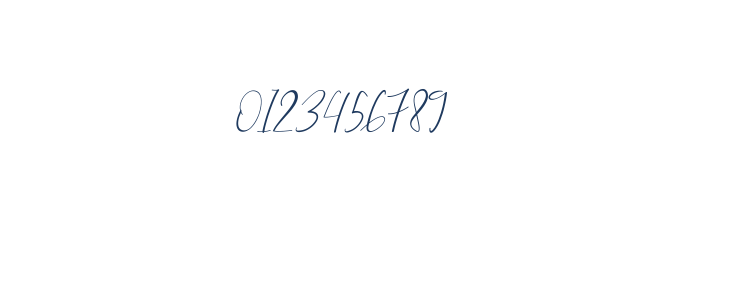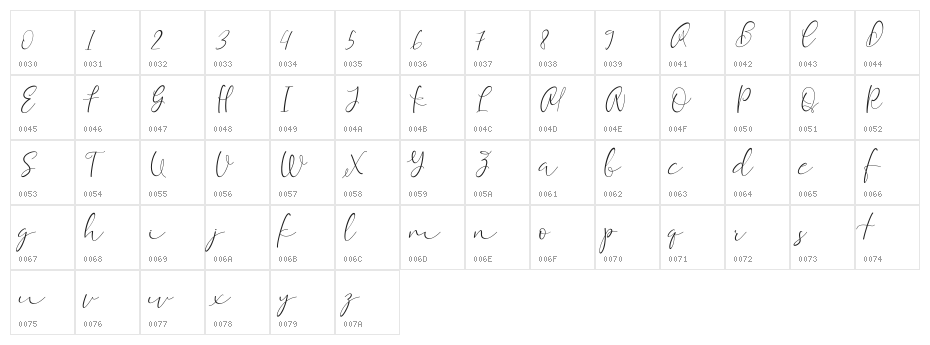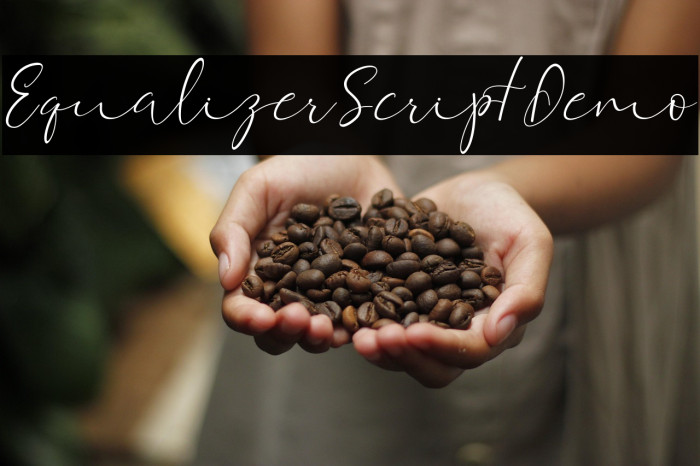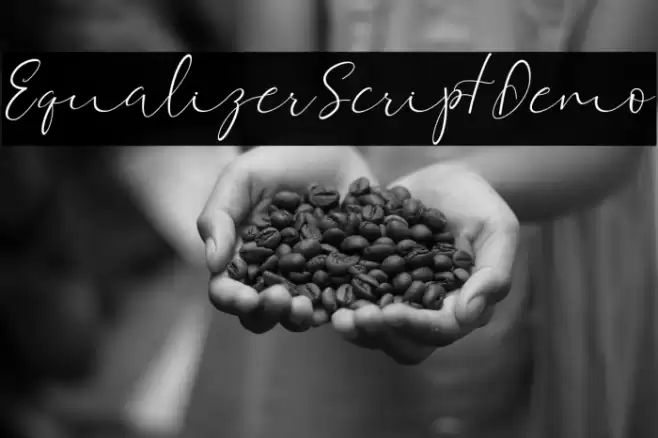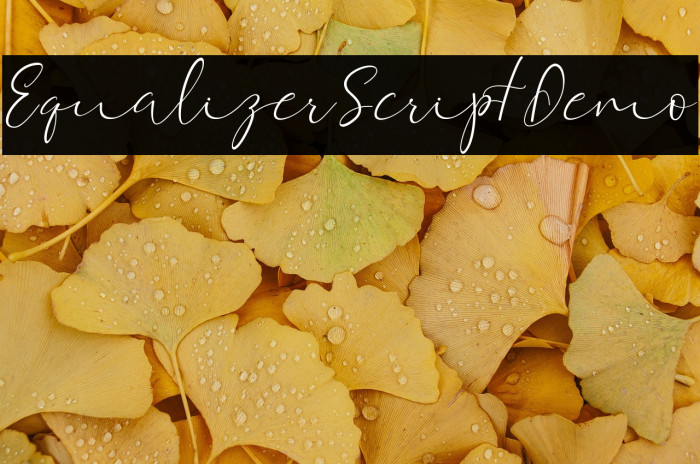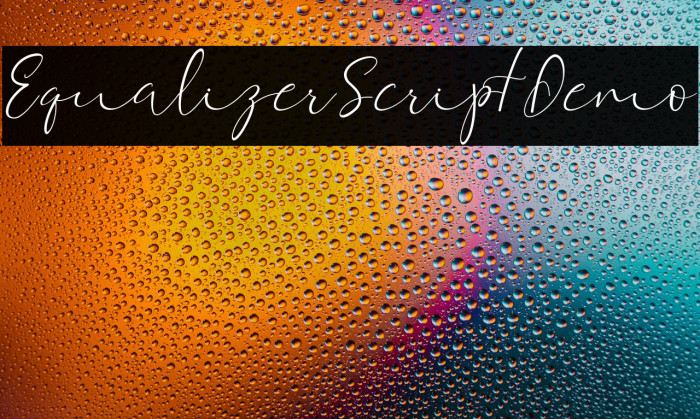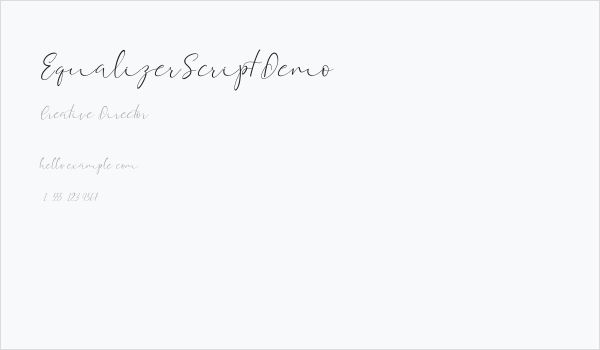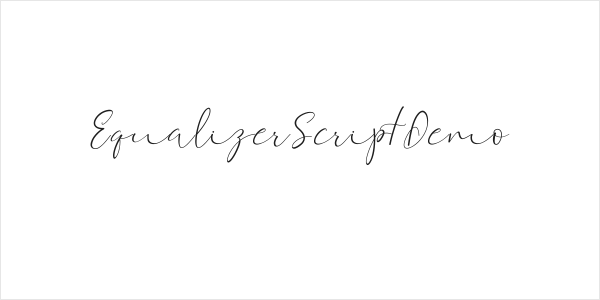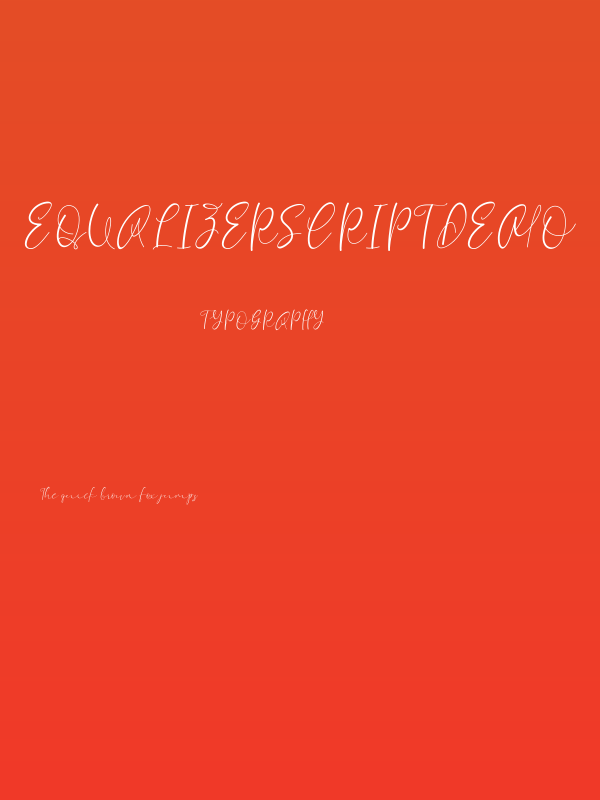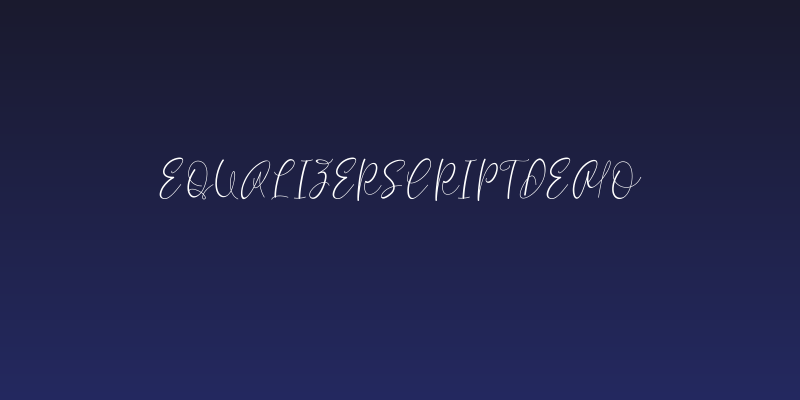
EqualizerScriptDemo Font
EqualizerScriptDemo Description
This font features a flowing, cursive style that mimics elegant handwriting. The letters are connected, creating a seamless and fluid appearance. The strokes vary in thickness, adding a dynamic and lively feel to the text. The uppercase letters are bold and prominent, while the lowercase letters maintain a graceful and delicate look. The numerals and special characters are designed to match the overall script style, ensuring consistency throughout. This font exudes sophistication and charm, making it ideal for projects that require a personal and artistic touch.
Overall StyleElegant, Artistic
Use CaseLogos, Invitations, Artistic projects
Proposed ProjectsIdeal for wedding invitations, greeting cards, personal branding, and artistic projects.